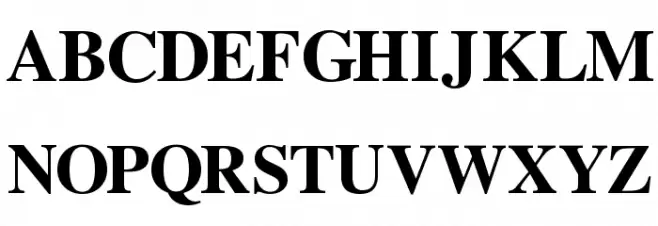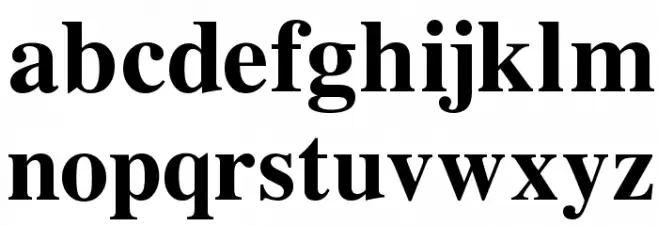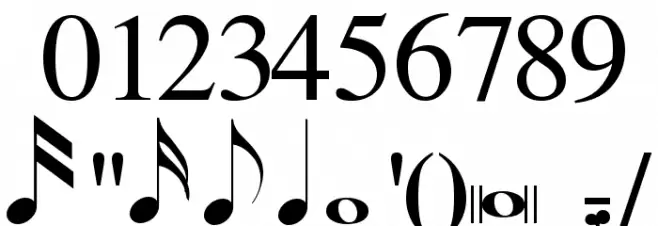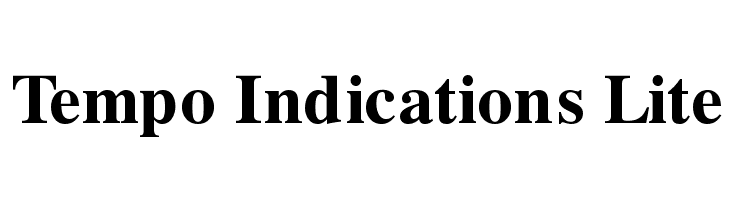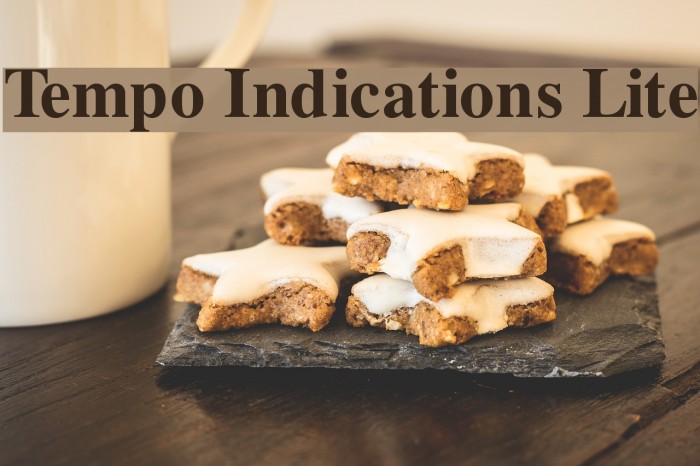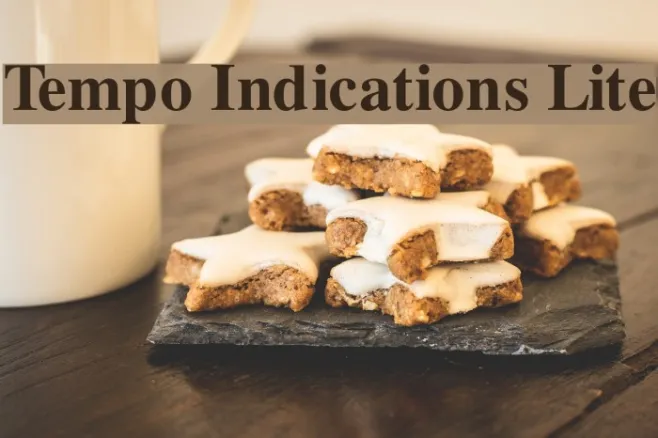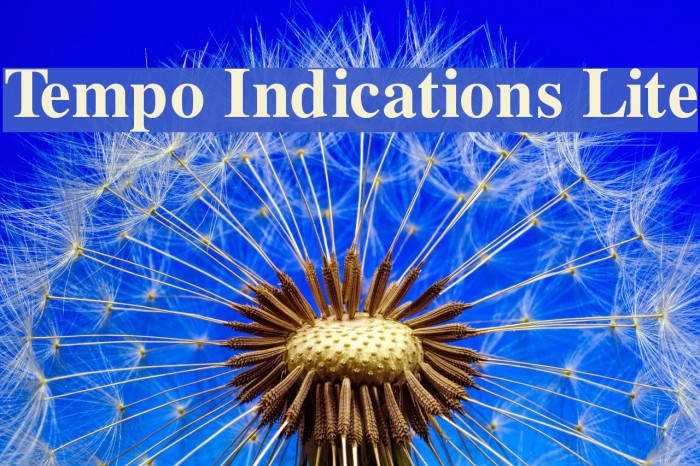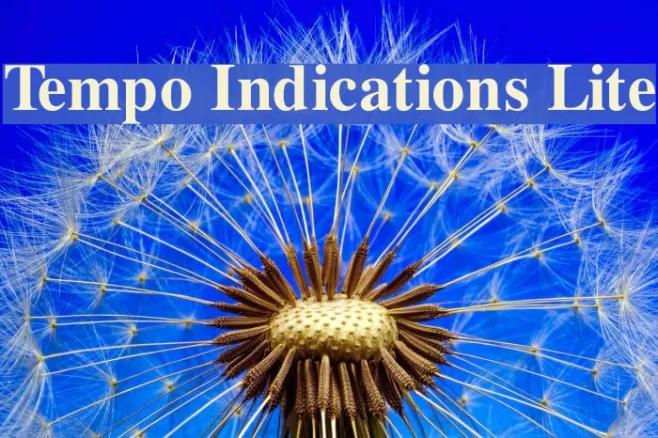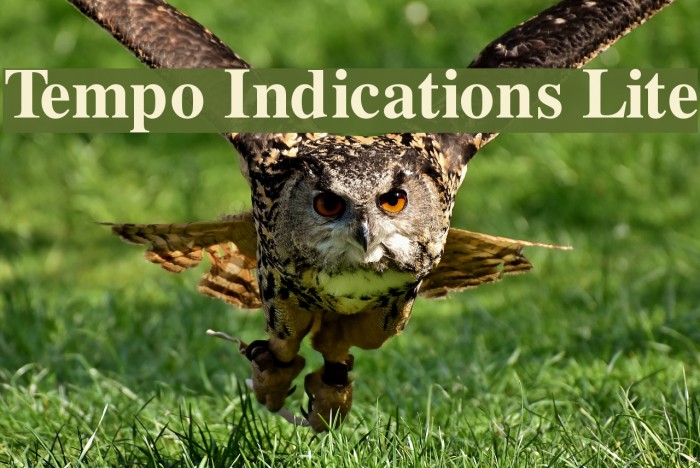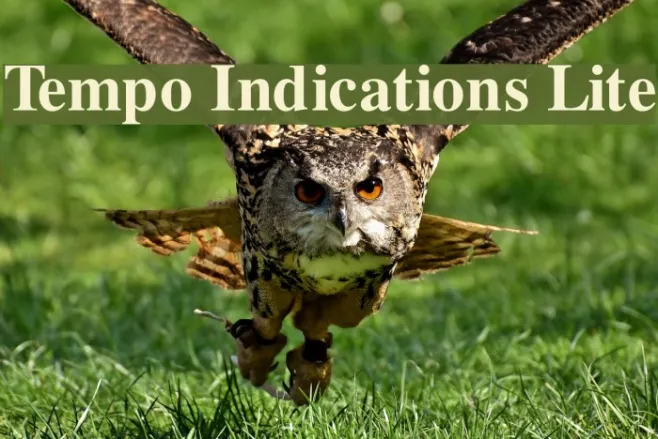
Tempo Indications Lite Font
This allows you to put in both metronome markings and tempo indications within the one font Lite version, no tuplet markings.